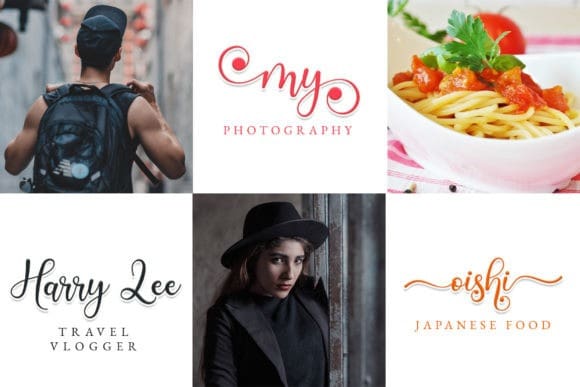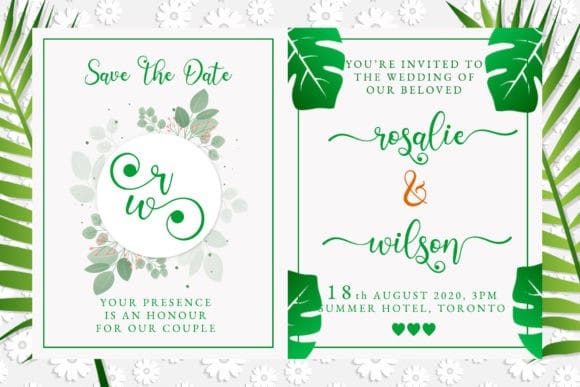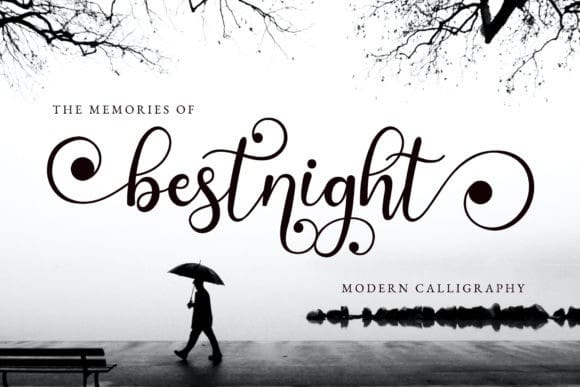
Bestnight Font
Bestnight Font is an elegant and flowing handwritten font. It is PUA encoded which means you can access all of the glyphs and swashes with ease! It features a varying baseline, smooth lines, gorgeous glyphs and stunning alternates. It maintains its classy calligraphic influences while feeling contemporary and fresh. Fall in love with this font and bring your projects to the highest levels!